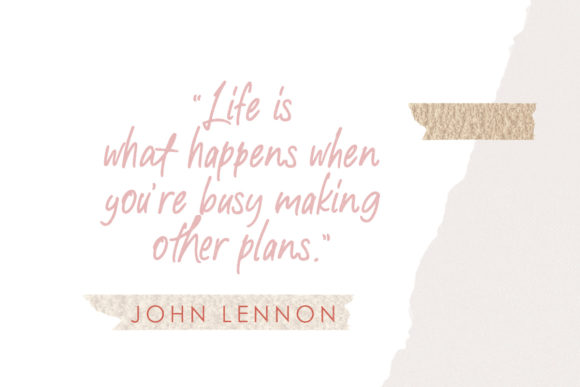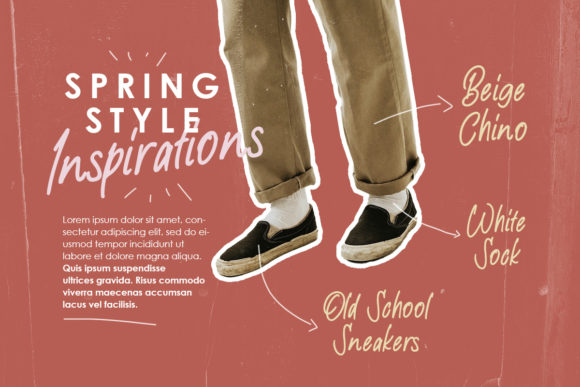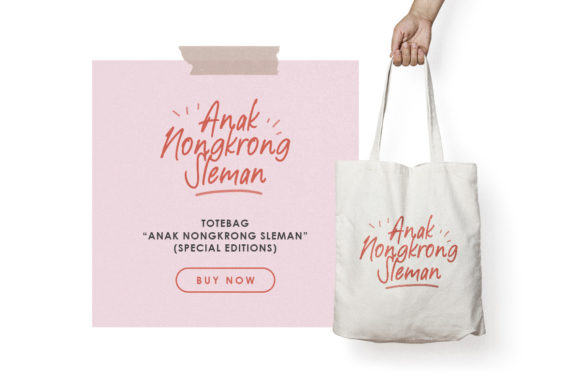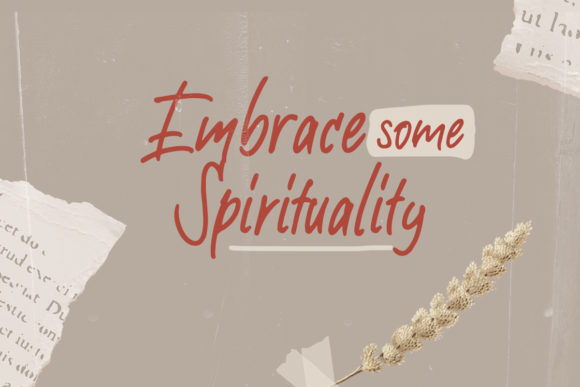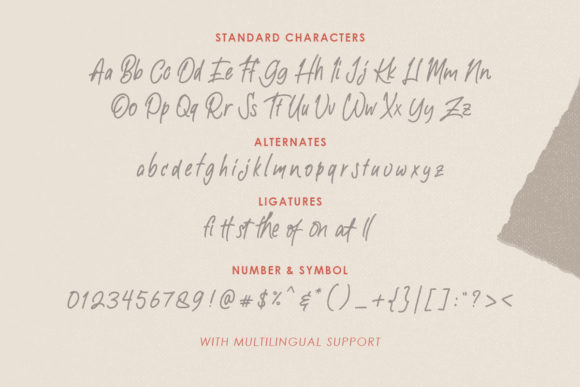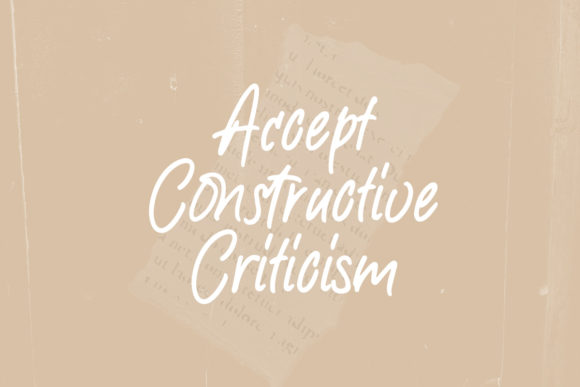
Aesthetic Notes Font: Elevate Your Design with Elegance
In the world of design, fonts play a crucial role in conveying the tone and personality of a brand. Aesthetic Notes is a stylish and elegant handwritten font that can instantly elevate your design and make your branding shine. With its unique and sophisticated style, Aesthetic Notes is perfect for designers and crafters looking to add a touch of elegance to their projects.
The Power of Aesthetic Notes Font
Aesthetic Notes is more than just a font – it’s a design statement. This beautiful handwritten font is designed to impress your audience and make your projects stand out. Whether you’re working on a logo, advertisement, packaging, or website, Aesthetic Notes can add a level of sophistication and elegance that’s hard to achieve with other fonts.
Key Features of Aesthetic Notes Font
- Stylish and Elegant: Aesthetic Notes boasts a stylish and elegant design that’s perfect for high-end branding and designs.
- Handwritten: The font’s handwritten style gives it a personal and unique touch that’s perfect for adding character to your designs.
- Versatile: Aesthetic Notes can be used for a wide range of design projects, from headings and logos to ads, quotes, and packaging.
- Easy to Read: Despite its elegant style, Aesthetic Notes is easy to read, making it perfect for body text and captions.
Aesthetic Notes is a perfect fit for designers and crafters who want to add a touch of elegance to their projects. Whether you’re working on a personal project or a client’s design, Aesthetic Notes can help you create a stunning visual identity that’s sure to impress.
Use Cases for Aesthetic Notes Font
- Logos: Use Aesthetic Notes to create a stylish and elegant logo that’s sure to make your brand stand out.
- Headings: Add a touch of sophistication to your headings and titles with Aesthetic Notes.
- Ads: Use Aesthetic Notes to create eye-catching ads that grab attention and drive results.
- Packaging: Add a touch of elegance to your packaging with Aesthetic Notes.
- Website and Social Media: Use Aesthetic Notes to create a consistent visual identity across your website and social media channels.
Tips for Using Aesthetic Notes Font
- Pair with Other Fonts: Experiment with pairing Aesthetic Notes with other fonts to create a unique and visually appealing combination.
- Use Different Weights: Use different weights of Aesthetic Notes to create visual hierarchy and add depth to your design.
- Experiment with Colors: Try out different colors and textures to add an extra layer of interest to your design.